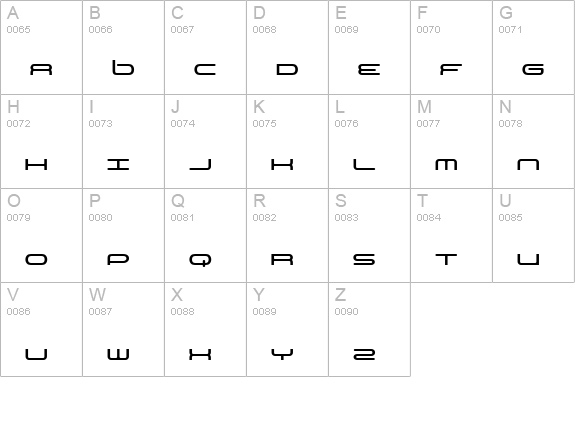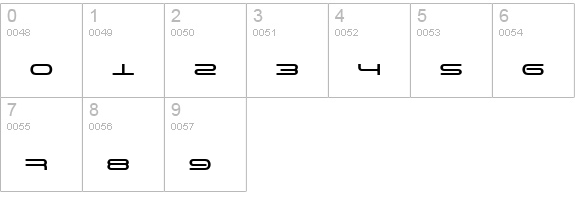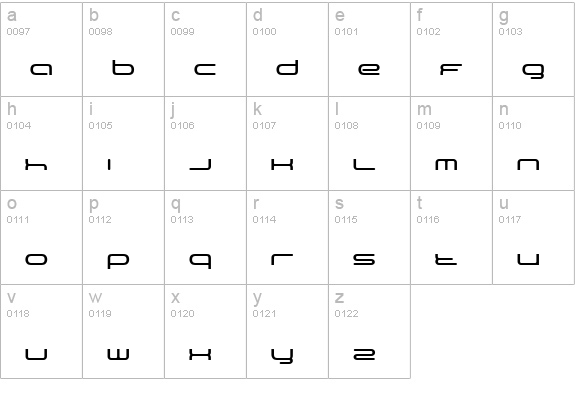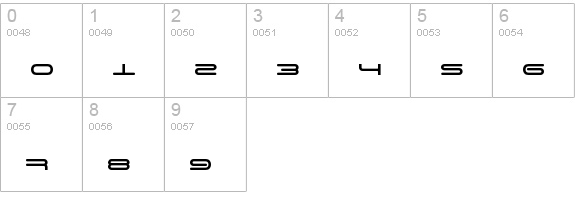
BN 3rd Place Font Details
BN 3rd Place font is a modern and stylish typeface that exudes sophistication and elegance. With its clean lines and sleek design, this font is perfect for a wide range of design projects, from branding to editorial layouts. The sharp edges and unique letterforms of BN 3rd Place give it a distinctive and eye-catching appearance that is sure to make your designs stand out. What's even better is that BN 3rd Place font is available for free download at FontsMarket.com. This means that you can easily access this versatile and professional font for your projects without any cost. Whether you are a designer looking to add a touch of class to your creations or a business owner in need of a refined font for your branding, BN 3rd Place is the perfect choice. Download it now and elevate your designs with this stunning typeface.